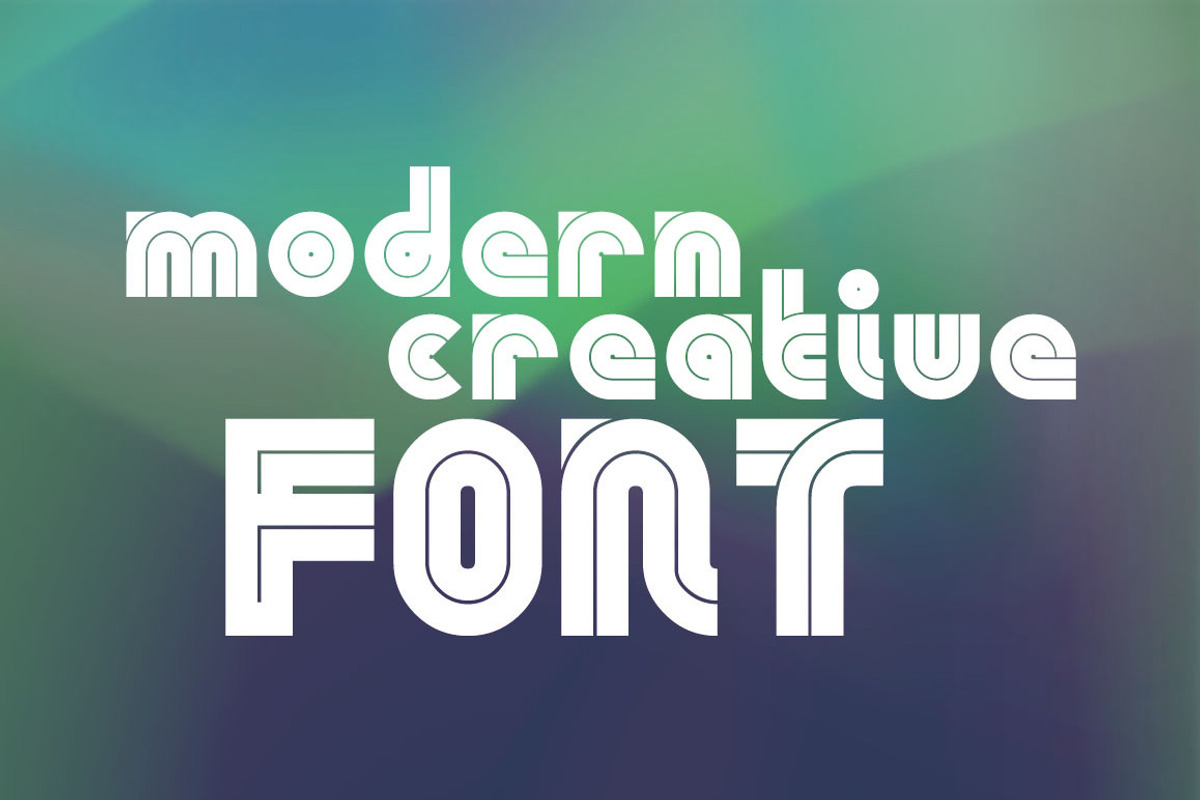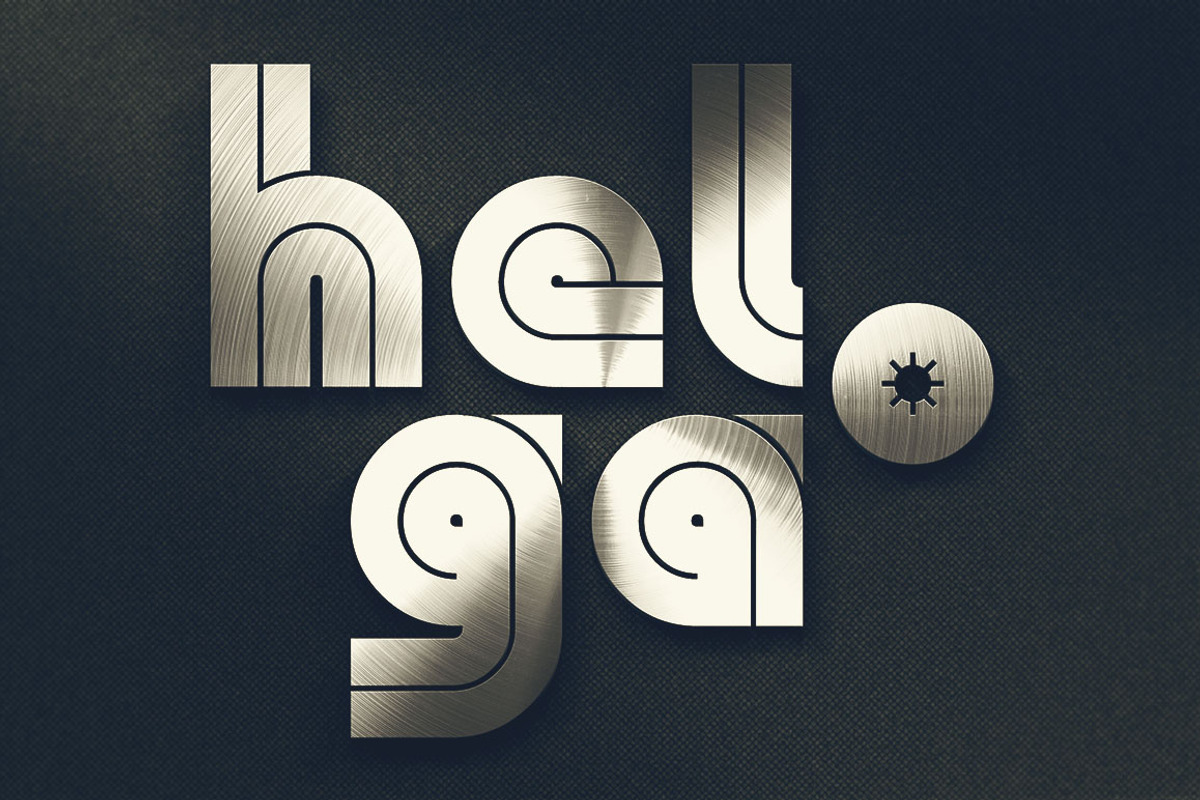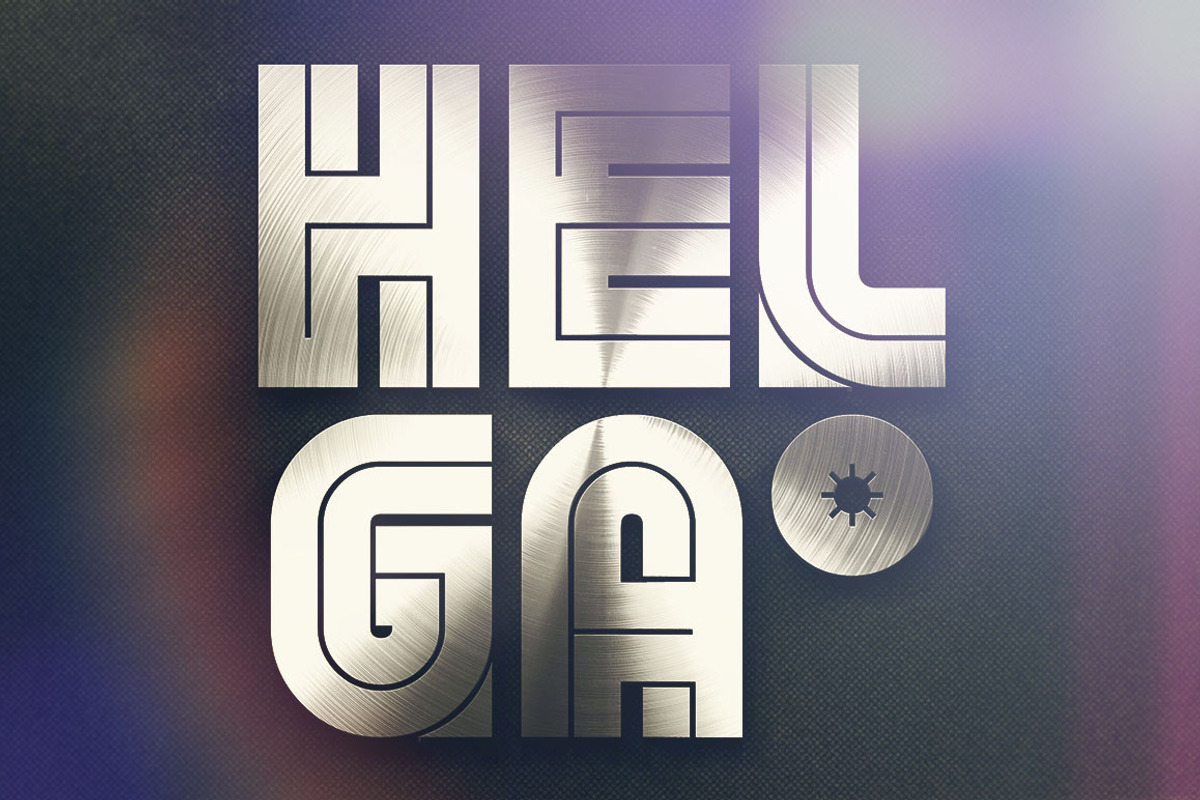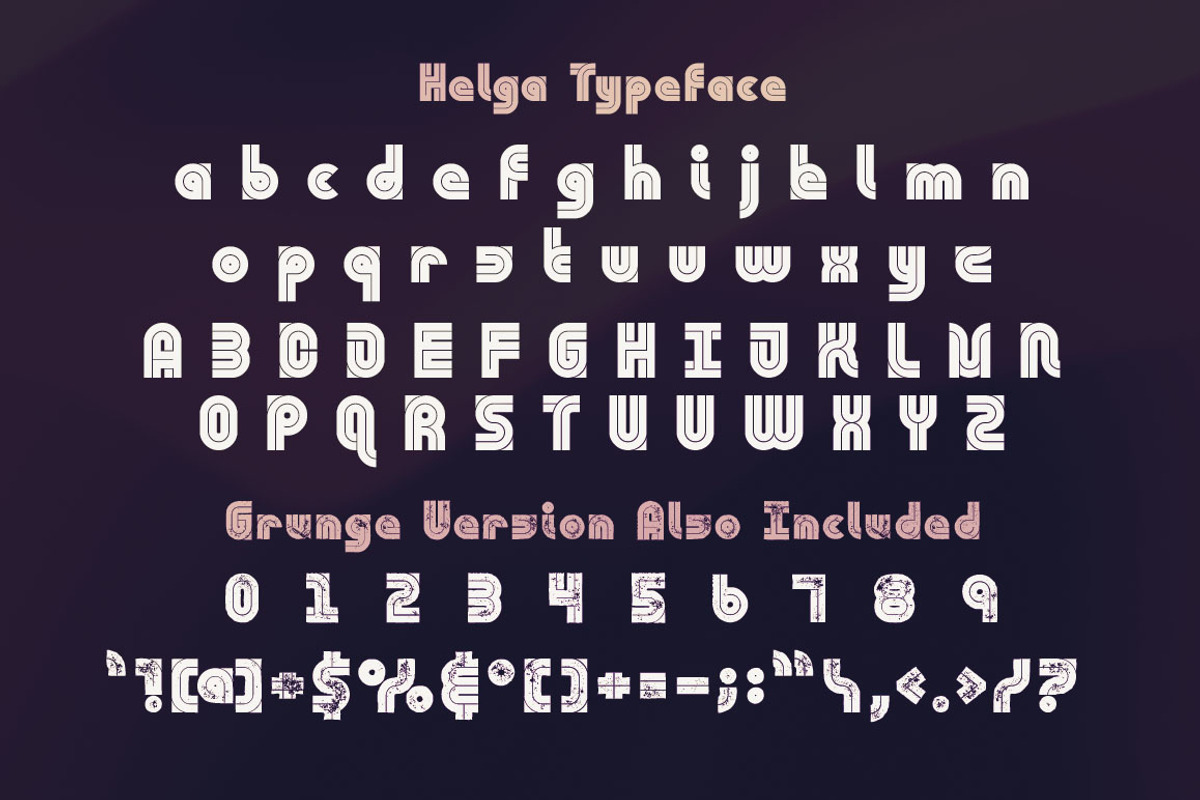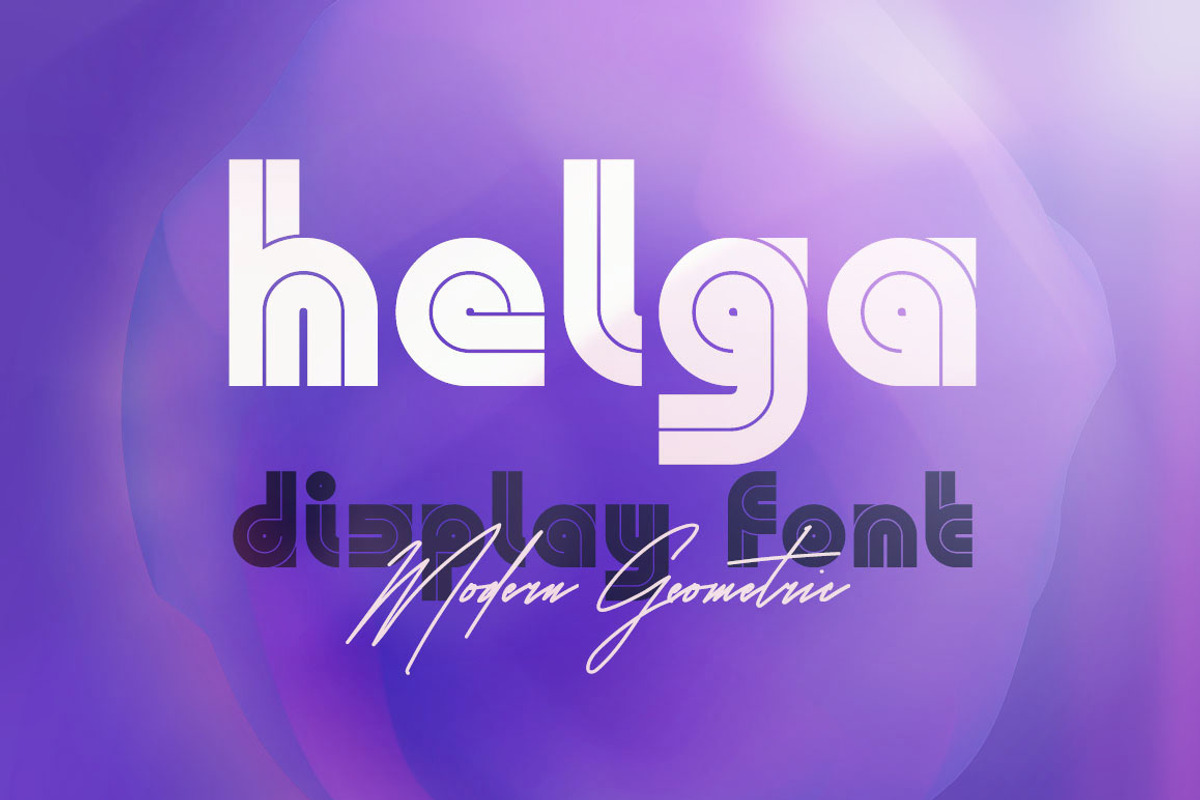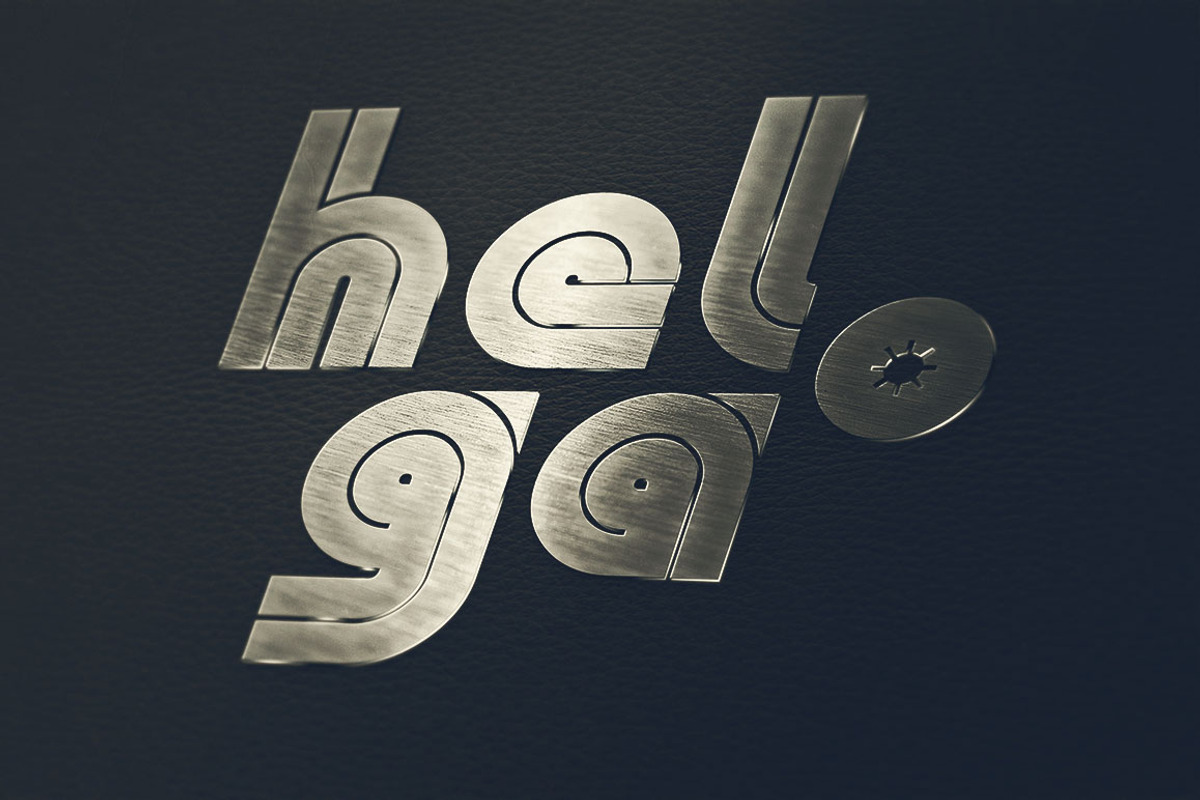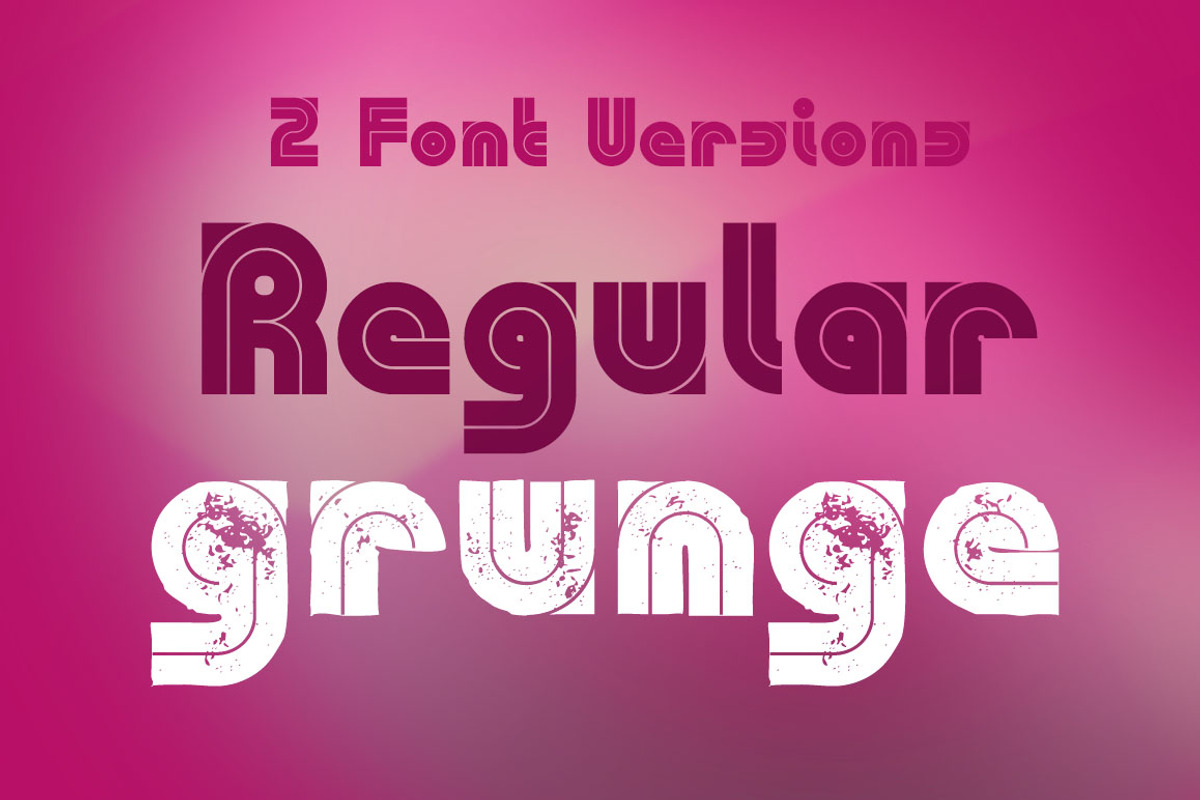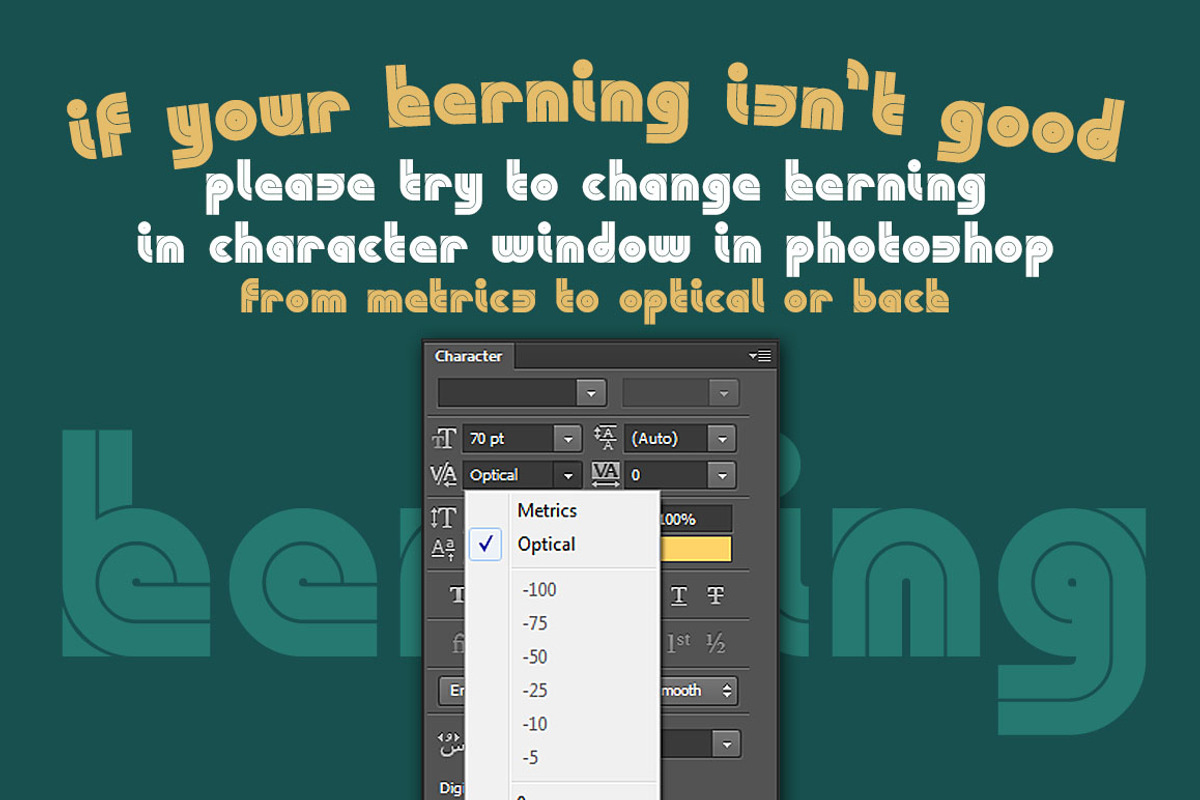
Helga - Display Font
Geometric, modern & inline font for your new projects. Great for modern or creative style projects!
Why Helga - Display Font is worth a look
Helga - Display Font by MIIM fits naturally into Branding, posters, packaging, typography.